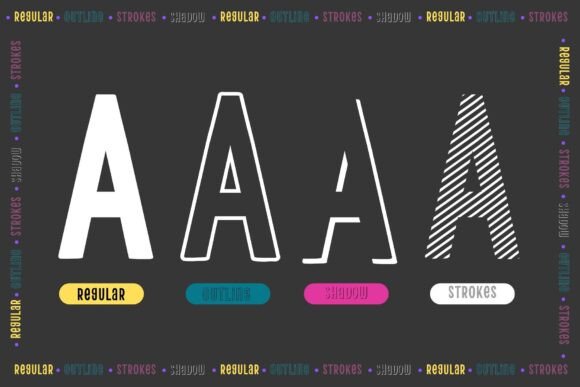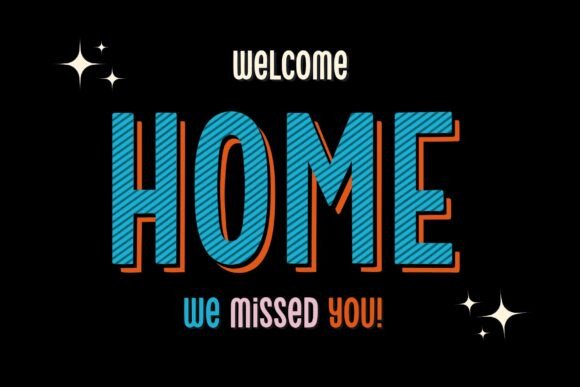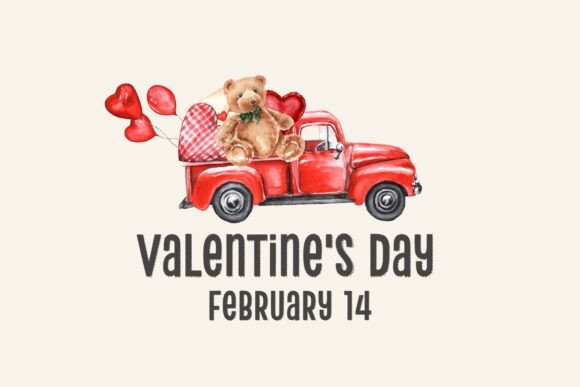
Introduction to Fox Maggie Font
Fox Maggie, a playful and versatile font family designed to bring charm and creativity to your projects.
This font offers 4 unique styles: Regular, Outline, Shadow, and Strokes, allowing endless possibilities for your design needs Perfect for kids’ themes, classroom posters, handmade crafts, or any creative projects, Fox Maggie adds a vibrant, fun-filled personality to your work.
Key Features of Fox Maggie Font
Why Choose Fox Maggie Font?
Fox Maggie Font offers exceptional quality and versatility, making it a valuable addition to your design toolkit. Whether you’re creating for personal projects or commercial use, Fox Maggie Font delivers professional results.